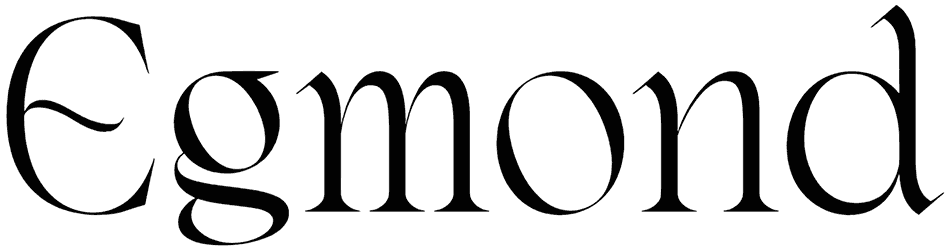
Egmond Font
Egmond font has that serious old-world serif charm that makes a headline feel like it came from a museum wall, a classic novel, or a brand that knows exactly how to behave. The letters carry a refined vintage weight, giving your typography a formal voice without making the whole layout feel dusty.
Use this elegant font for book covers, editorial titles, law firm branding, wine labels, gallery posters, certificates, or heritage packaging that needs trust and elegance in the same breath. Pair Egmond font with cream paper, thin rules, deep navy, engraved details, or quiet gold accents, and your design starts looking properly established.